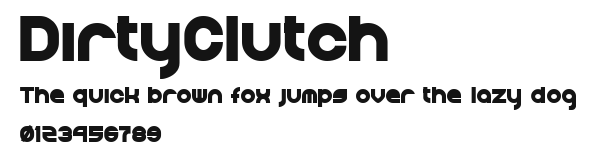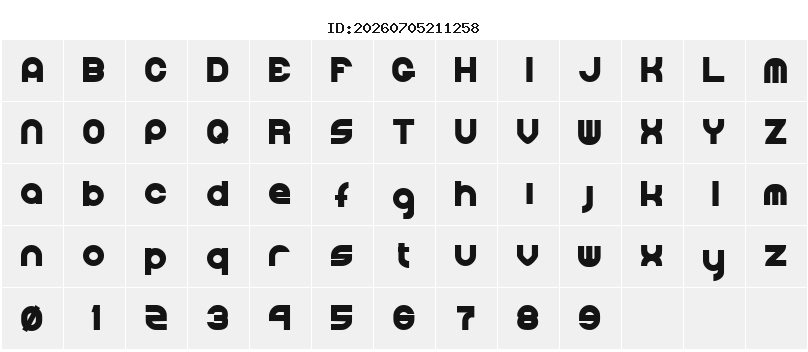
About DirtyClutch.ttf
DirtyClutch.ttf is a modern, elegant sans-serif font designed for ultimate readability and visual harmony. Perfect for branding, headlines, web design, and print materials.